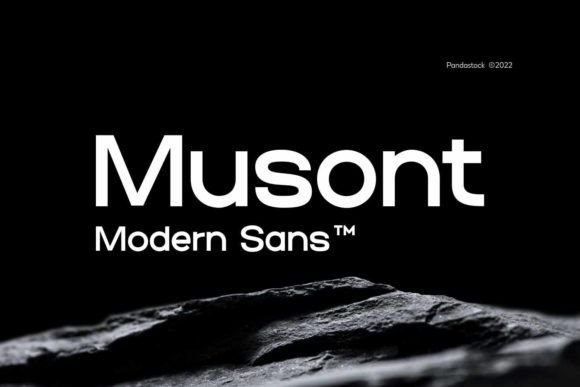
In the realm of typography, Musont Font stands tall with its clean and contemporary sans serif design. Created by the expert designers at Imoodev, this font family exudes sophistication and versatility, making it the perfect choice for creating captivating headlines that demand attention. Its crisp edges and sleek lines bring a touch of modern elegance to any project, whether it's a bold website header, an eye-catching logo, or a stylish social media post.
With Musont Font, your words take center stage, leaving a lasting impression on your audience. Its clean structure ensures that each letter is distinct and legible, even in small sizes, making it ideal for presentations, reports, and other text-heavy designs. The font's versatile nature allows it to blend seamlessly with various design aesthetics, from minimalist and modern to classic and timeless, adding a touch of sophistication to any project.
Unleash your creativity with Musont Font and elevate your designs to new heights. Its adaptability makes it suitable for a wide spectrum of applications, including branding, marketing materials, web design, and graphic design. The font's clean lines and legible structure make it perfect for creating compelling headlines, subheadings, and body text that resonate with your audience.
Musont Font is more than just a collection of letters; it's a tool that empowers you to communicate your message with impact and clarity. Its modern sans serif design adds a touch of elegance and professionalism to any project, leaving a lasting impression on your audience. Experience the difference with Musont Font and embark on a typographic journey that will transform your designs into captivating masterpieces.